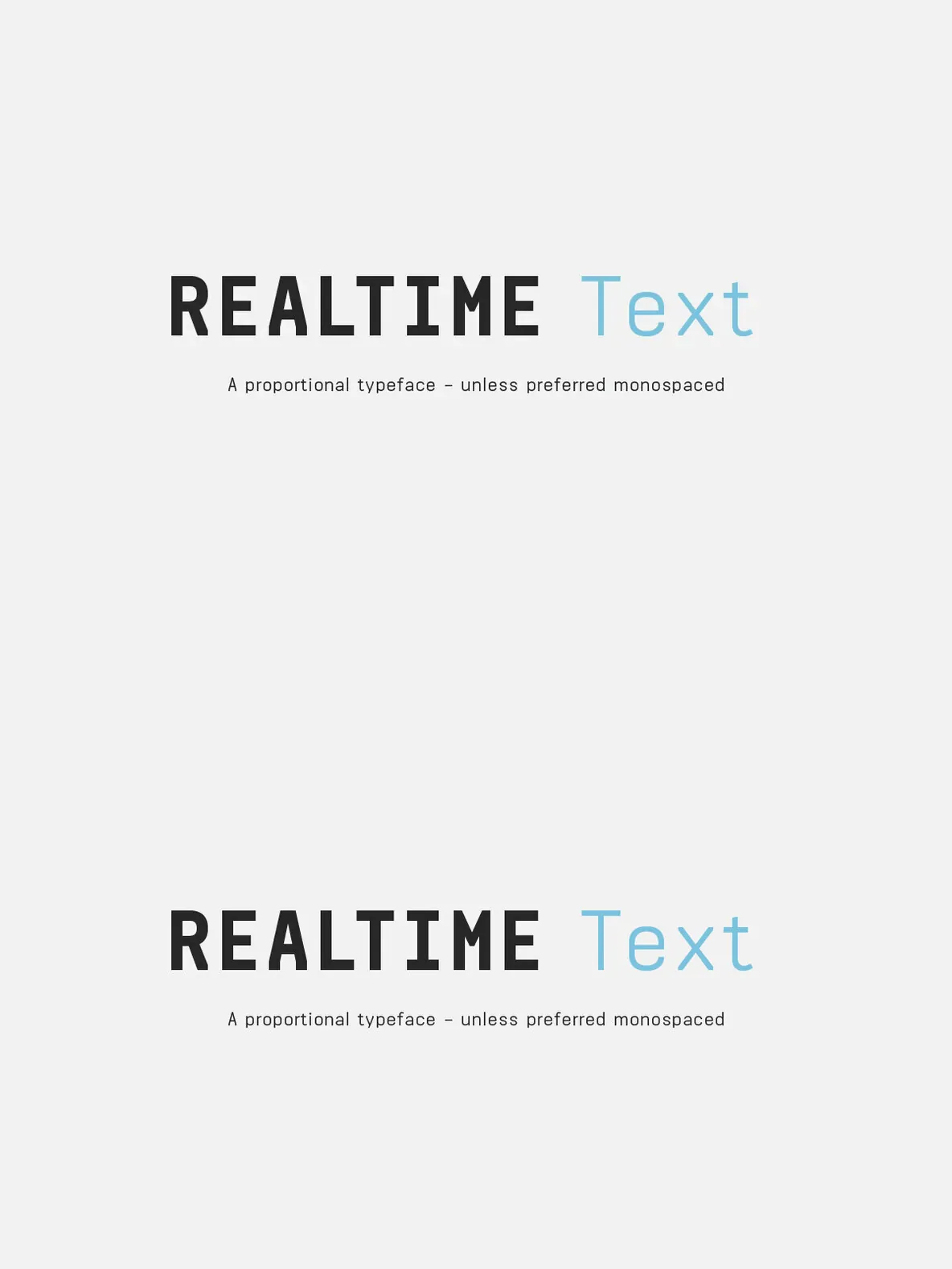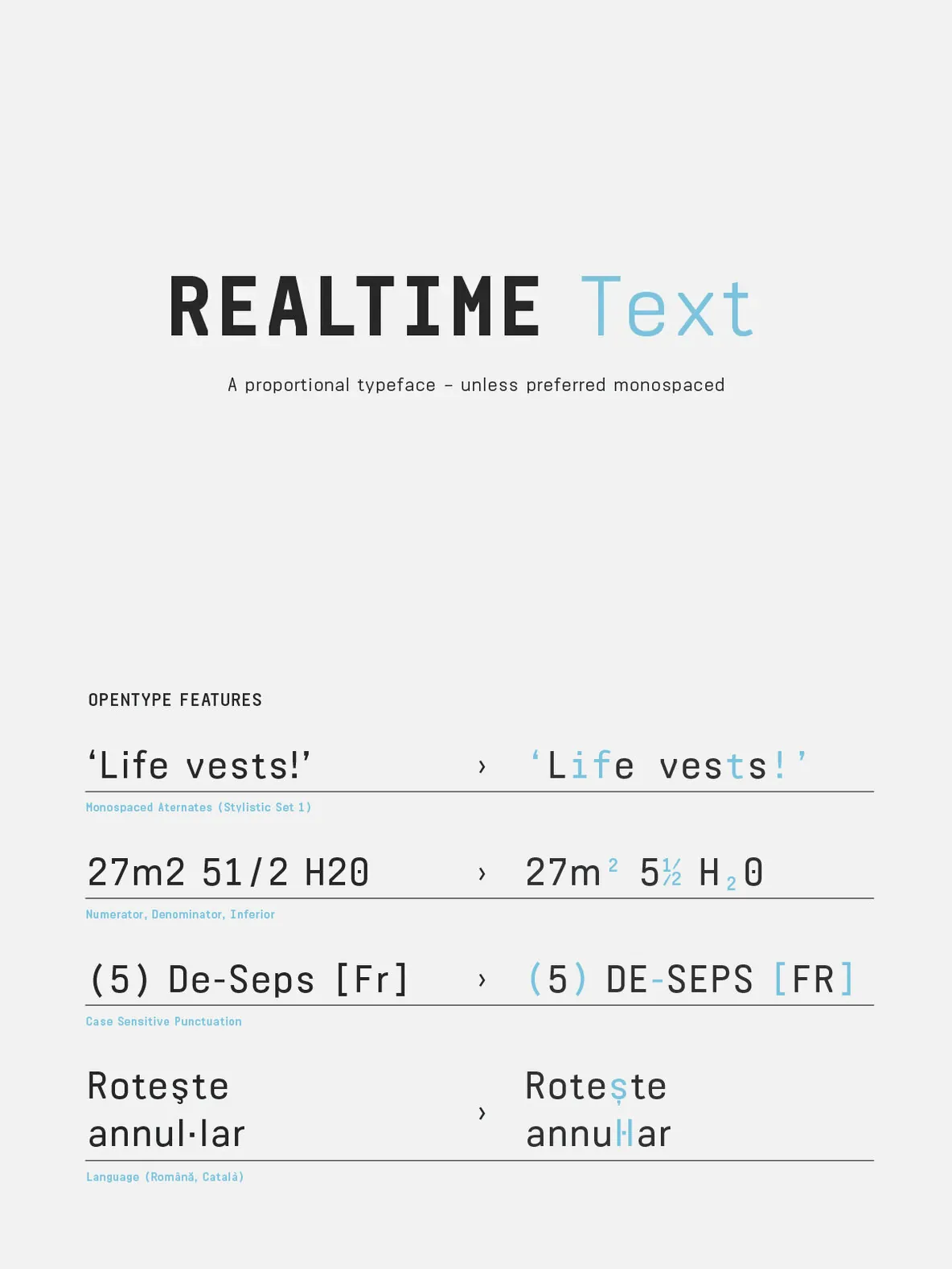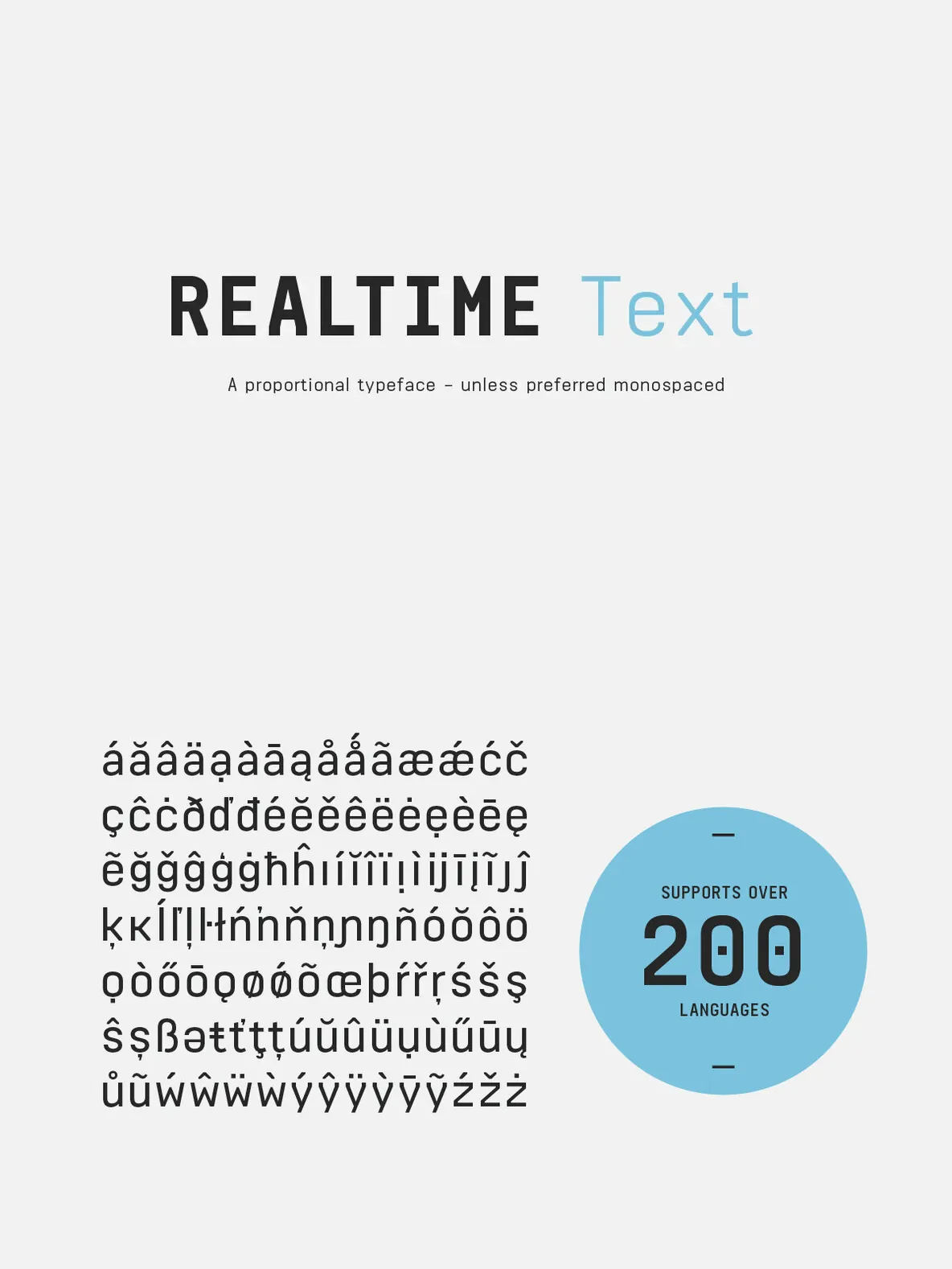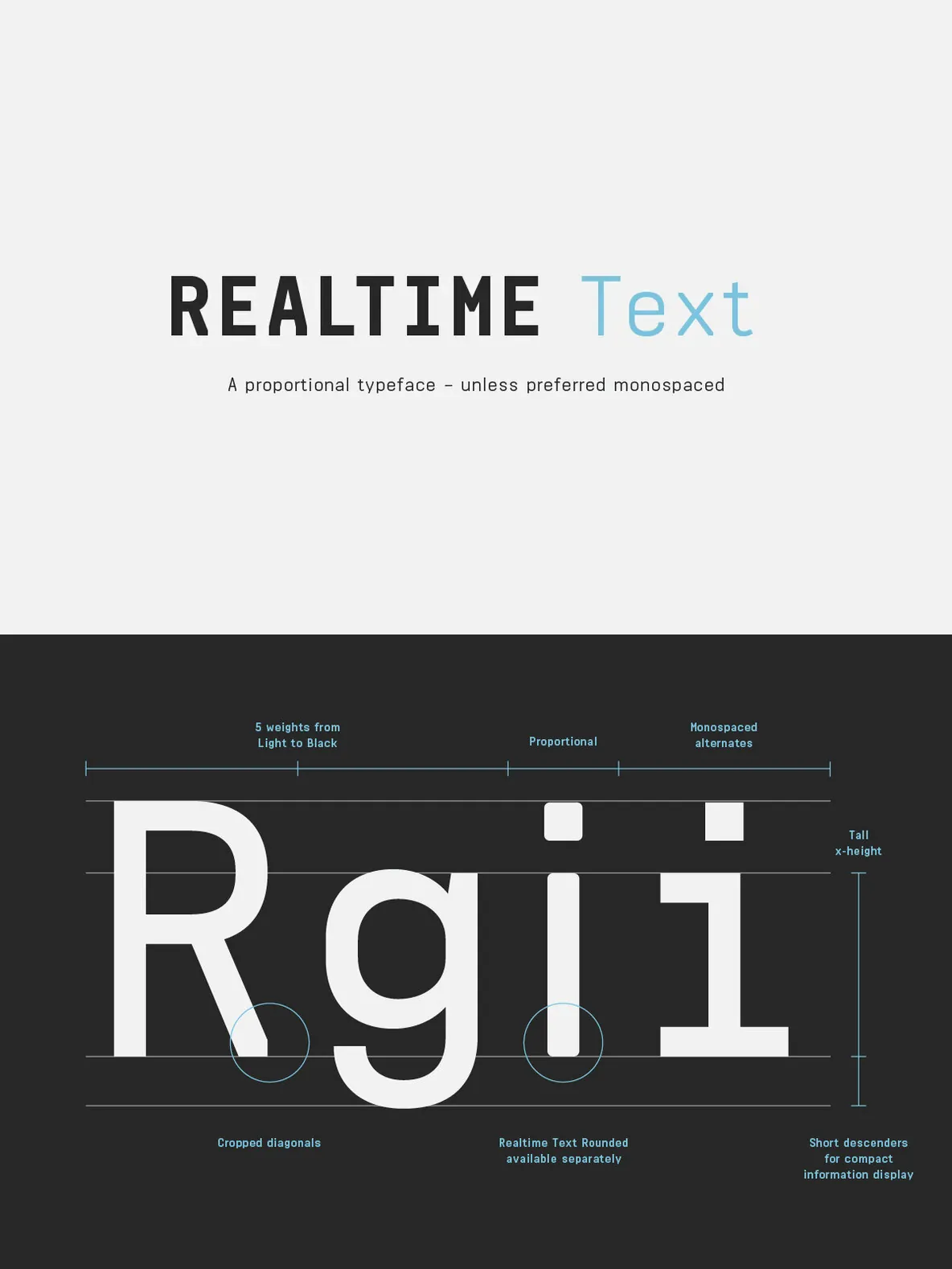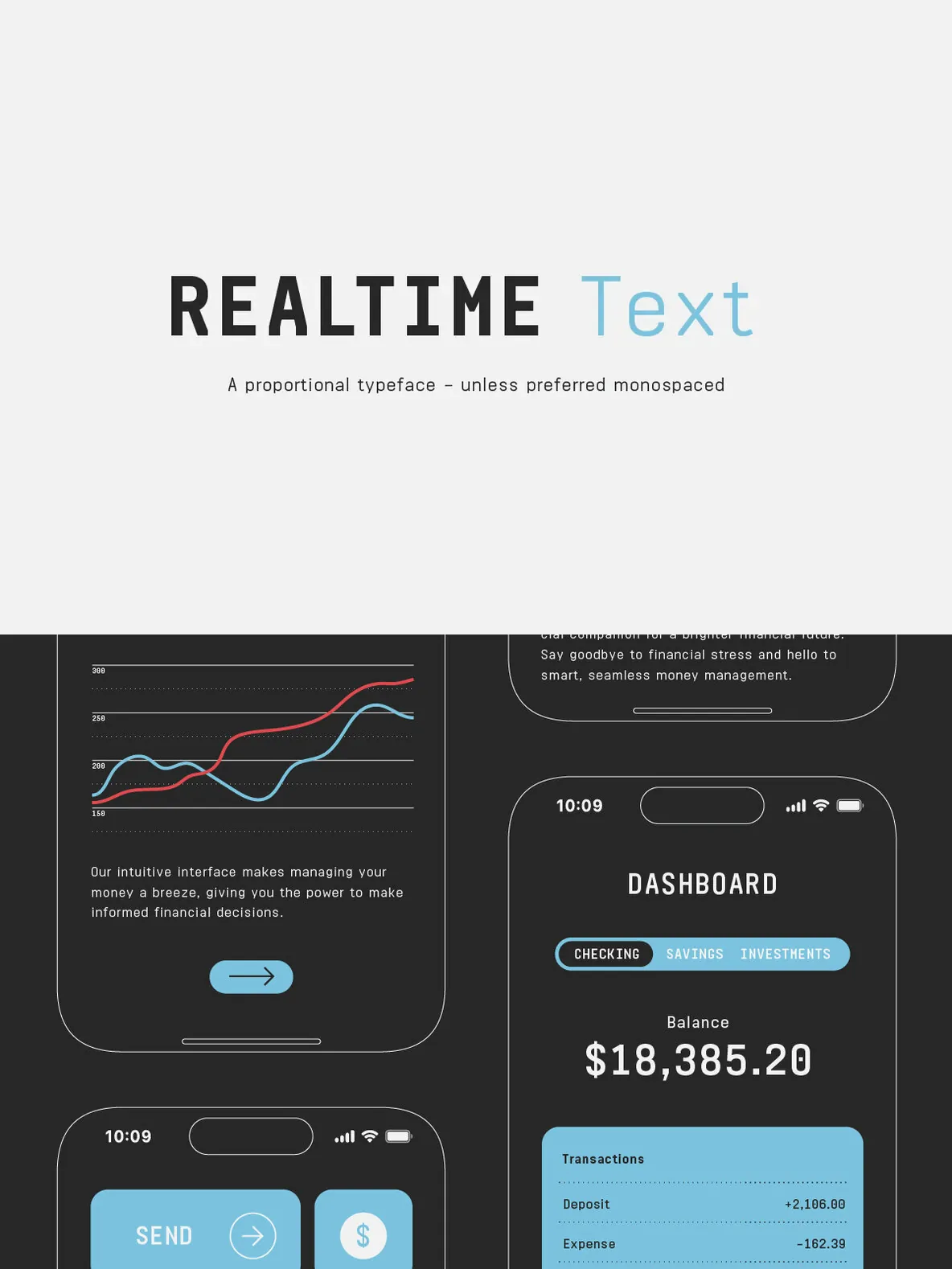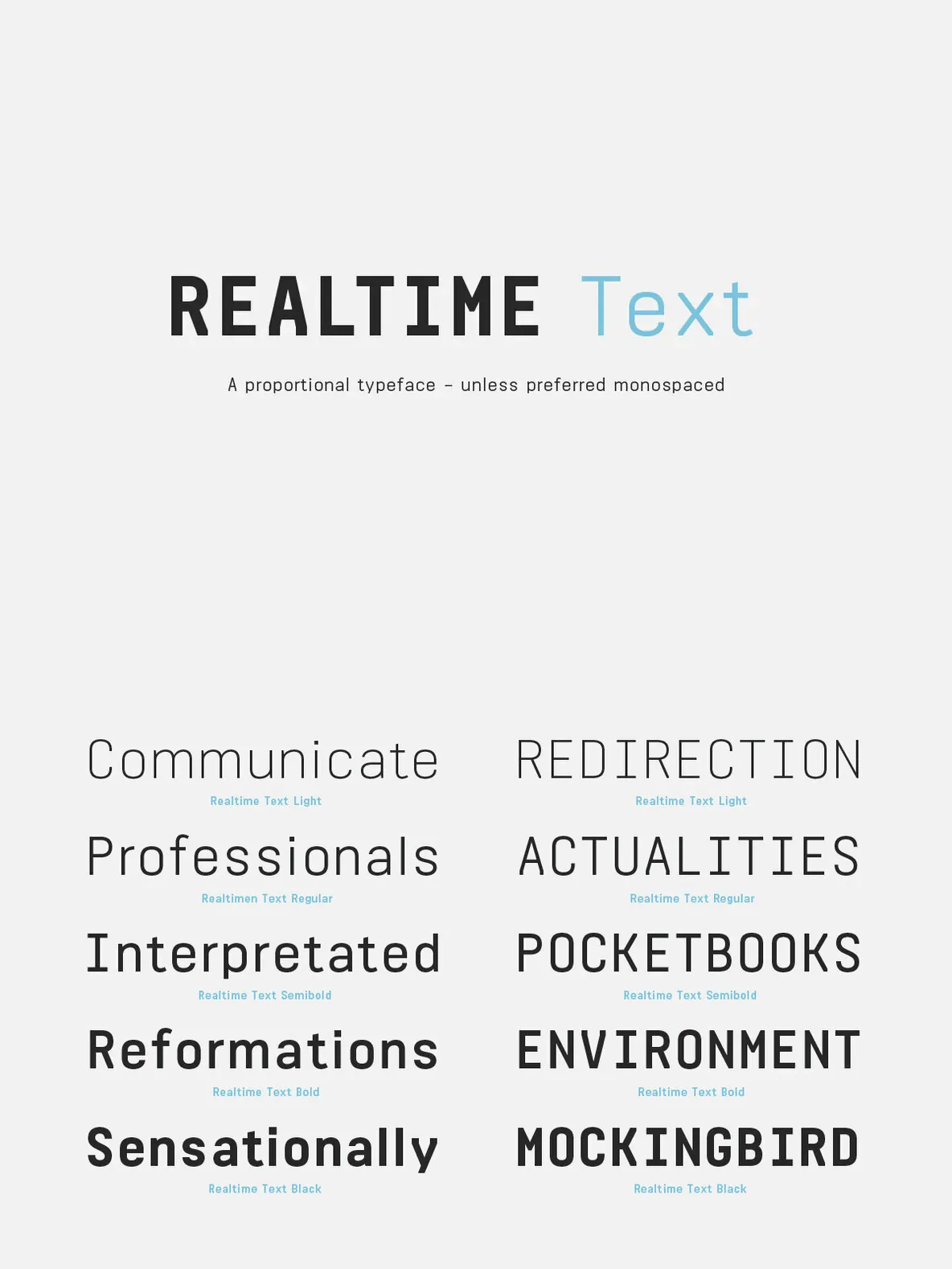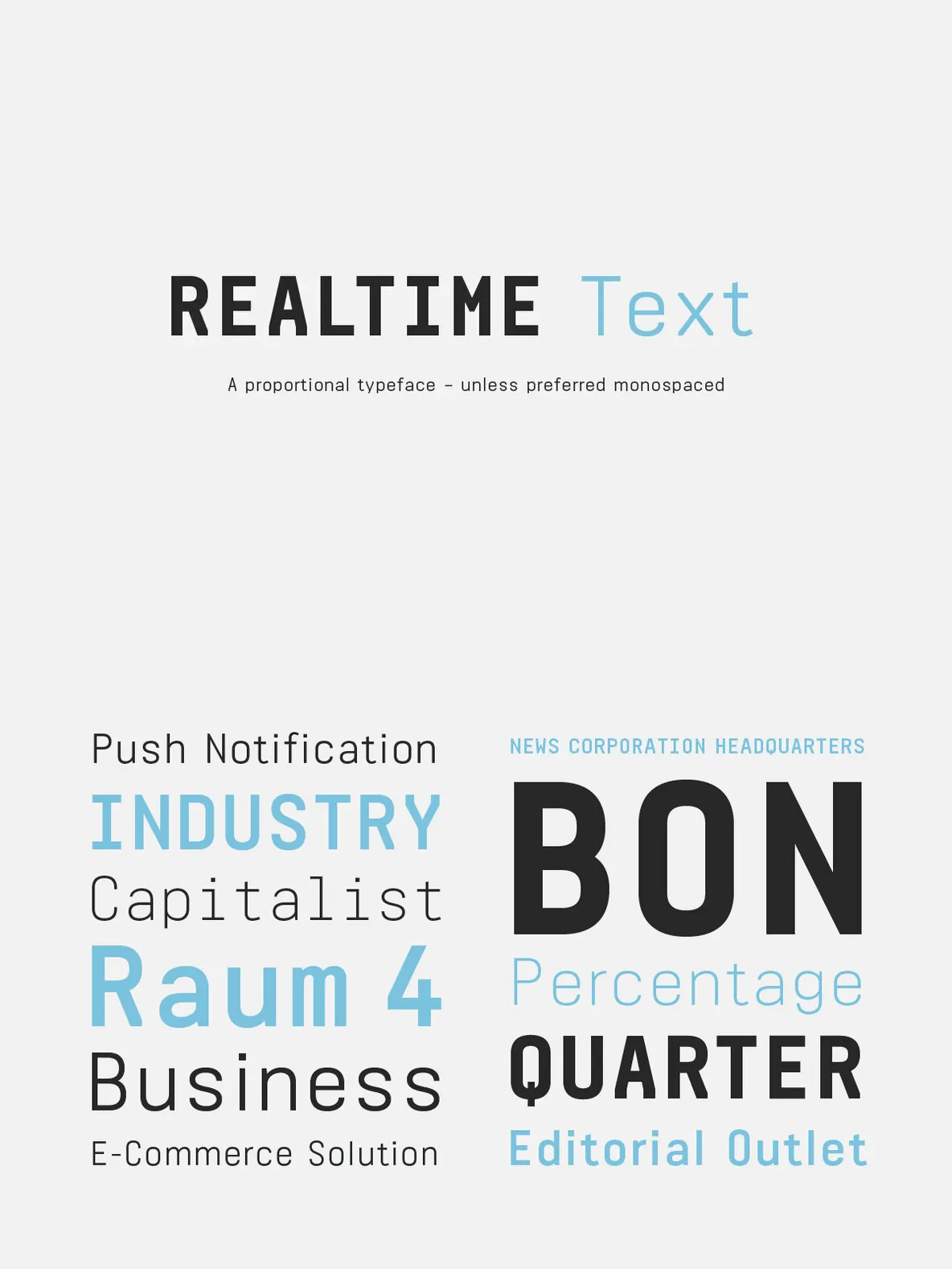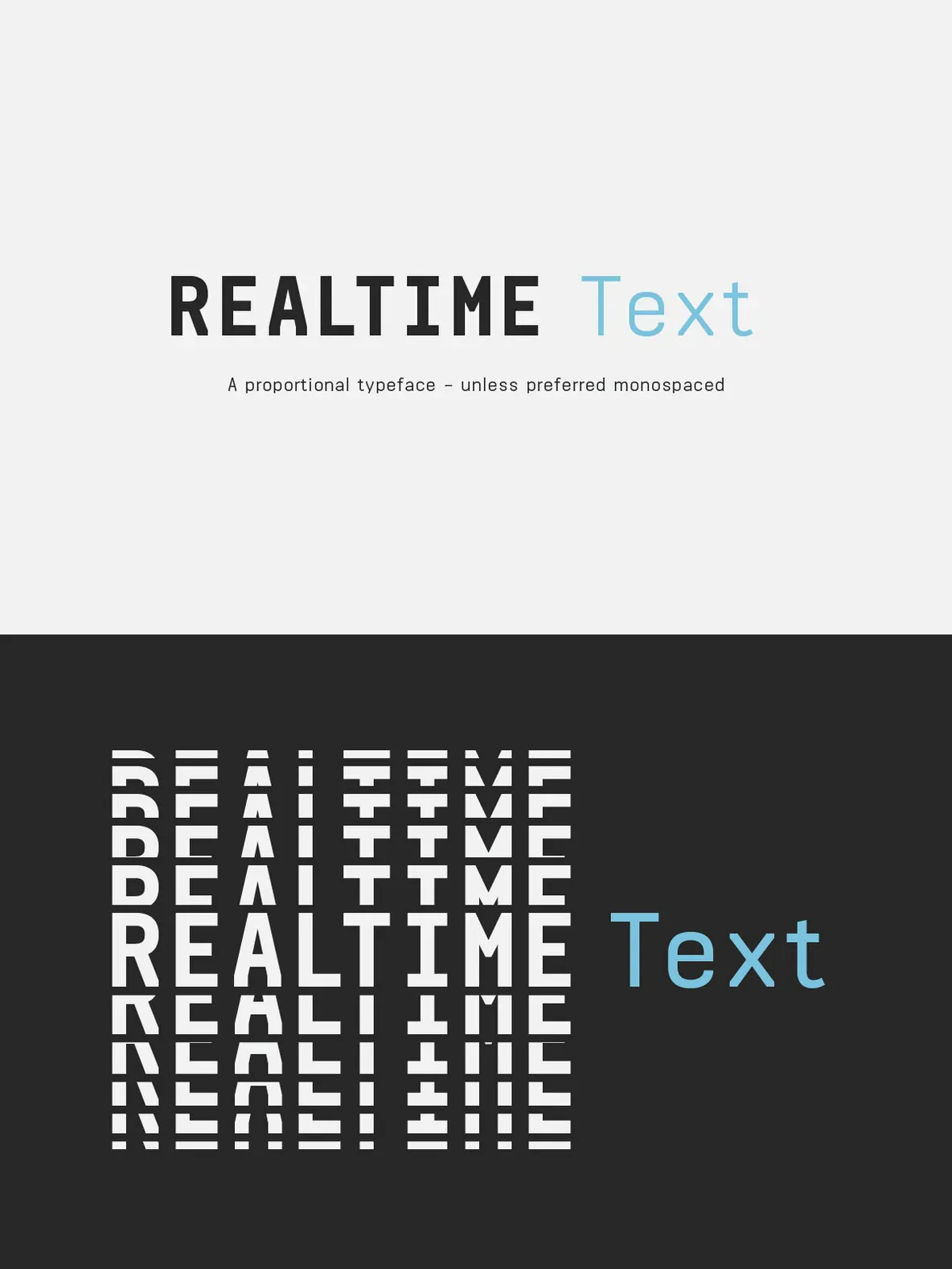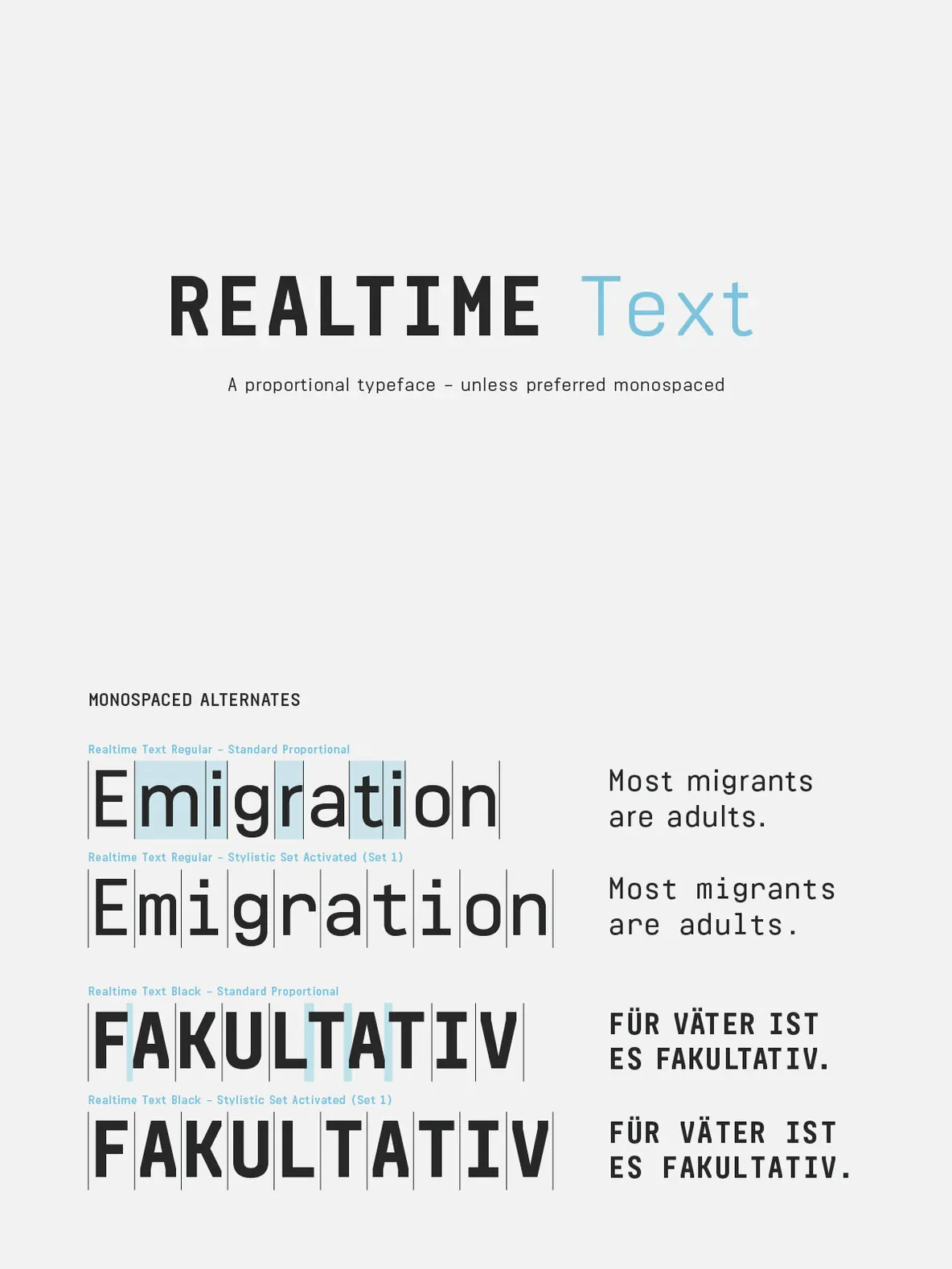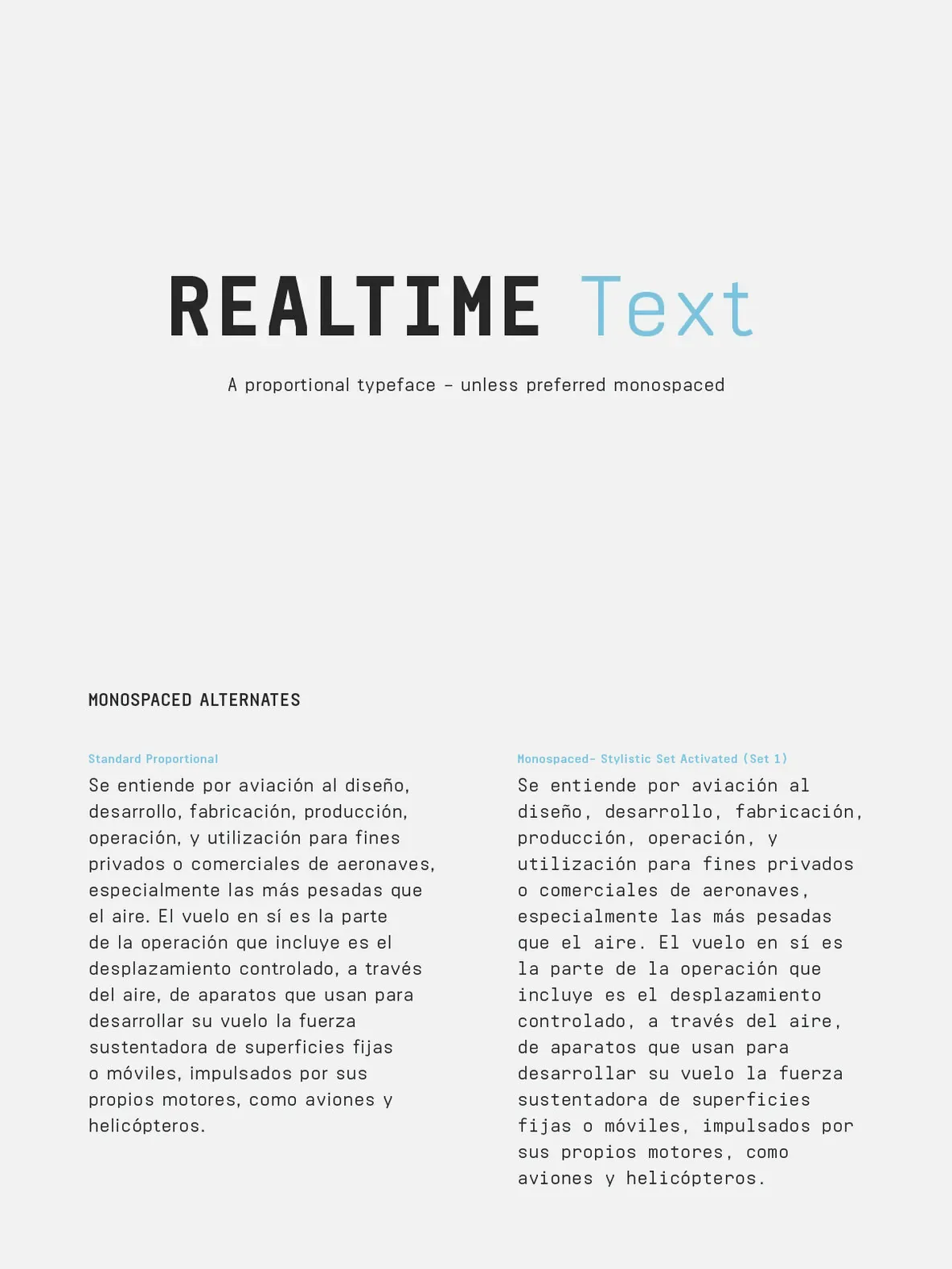
Realtime Text Font
Realtime Text: Technical clarity, friendly rhythm
Designed by Juri Zaech, Realtime Text is the proportional alternative to the monospaced Realtime type family. Even so, it includes a monospaced design built into the font. You can access it through OpenType by activating alternate characters, making it practical when you need consistent spacing without switching typefaces.
The design feels technical yet friendly, with details that serve function and visual impact alike. It lends itself to tabular designs, sturdy columns, and tidy layouts where structure and readability matter. Realtime Text comes in five weights, from light to black, and includes a character set that covers over 200 Latin languages.